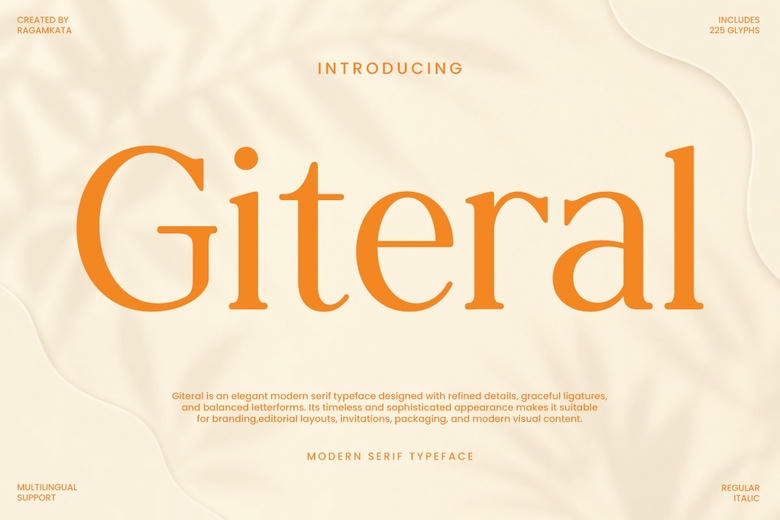
Giteral Font
Giteral is a modern serif typeface designed to add sophistication and timeless style to your design projects. It was made for premium branding and editorial work, offering a high-fashion look that is still easy to read.
Giteral’s subtle details and refined serif style help your designs stand out with a strong visual identity, while still feeling soft and welcoming. It works well in bold headlines and elegant body text, adding a sense of prestige and professionalism to your projects.
Giteral is a great choice for luxury branding, fashion campaigns, beauty products, wedding stationery, magazine layouts, packaging, invitations, social media, logos, and other high-end marketing materials.